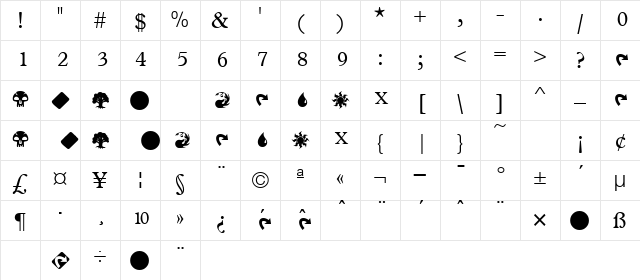
MagicSymbols Regular
Design Context for MagicSymbols
MagicSymbols is a composed and adaptable typeface that performs quietly and consistently across a wide range of design contexts.